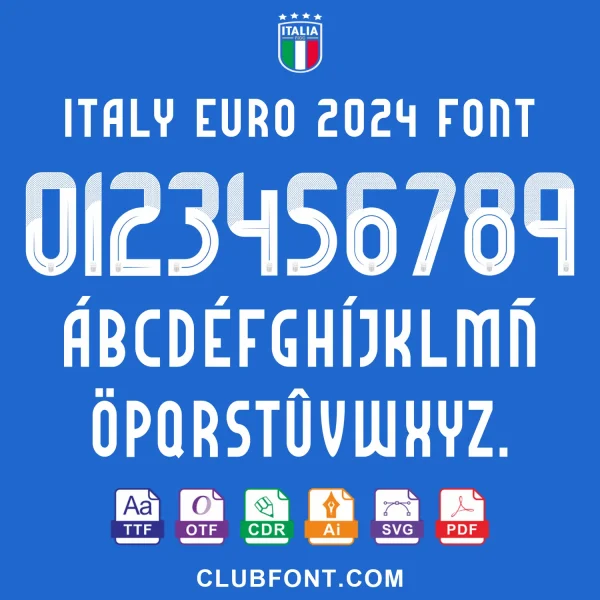
• Character Set: A–Z (Uppercase), 0–9 Numbers (Regular + Styled Variants)
• Bonus Glyph: Italy EURO 2024 Crest (Accessible via Keyboard Shortcut)
• Ideal For: Jersey Customization, Match Posters, Fan Merch, Cricut & Silhouette Cutting
Authentic Italy EURO 2024 Font for Fans & Designers
Our official Italy EURO 2024 Font is recreated with precision to match the iconic lettering on the Azzurri away kit. Whether you are crafting custom graphics for the Italy national team or producing high-quality fan gear, this Italy EURO 2024 Font pack delivers studio-grade results.
Perfect Match for Italy National Team Kits
This Italy EURO 2024 Font features sharp serifs and athletic proportions identical to the typography used by the FIGC at UEFA EURO 2024. Use it to recreate the back-of-shirt name and number for players like Barella, Chiesa, or Retegui with 100% accuracy.